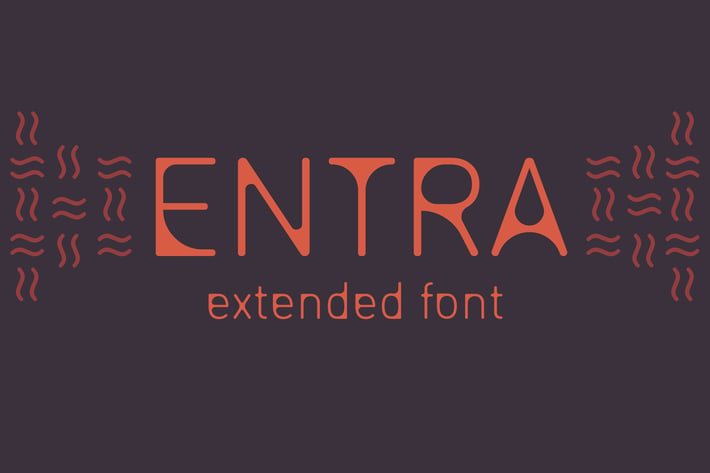
Entra Extended Font
Entra Extended with the unique style is a great display font for logos and eye catching headlines.
Entra extended font includes latin, latin extended and cyrillic letters, symbols and numbers.
Entra extended font comes has all the lower case and upper case letters